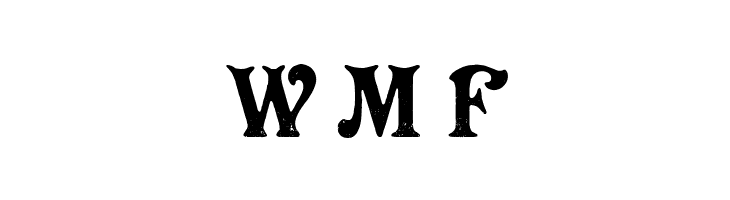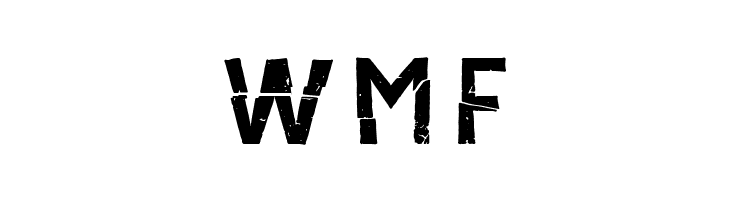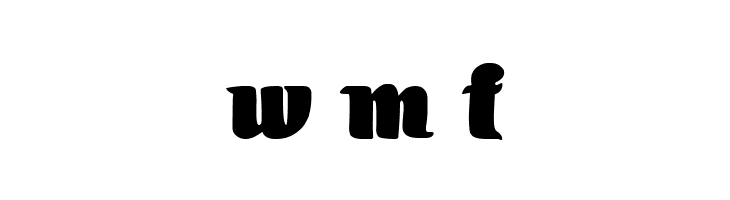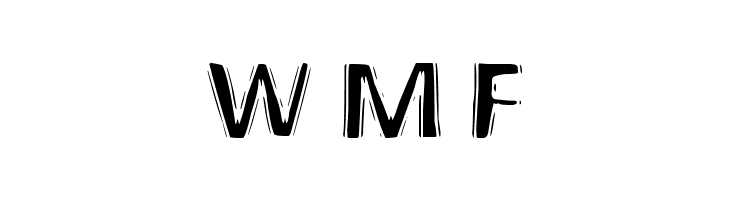
• Lamp
A bold, geometric stencil-style display font with an industrial look.
• Lana Turner
A bold, playful font with a dripping effect and retro vibe.
• Lapicero
A textured, hand-drawn font with a playful and artistic style.
• Las Brigadas
A bold, stencil-style font with geometric shapes and high contrast.
• Las Malas Calles
A bold, dripping font with a graffiti-like, horror-inspired style.
• Last Round
Bold, outlined geometric display font with strong industrial style.
• Latino Blood
A bold, dripping decorative font with a horror or blood theme.
• Latino Heart
A playful, bold handwritten font with a lively and energetic style.
• Le Casino Royale
A bold, vintage decorative font with distressed textures and ornate details.
• Le Club Parisien
A bold, distressed font with a vintage, industrial feel.
• Le Petit Chaos
A playful, sketch-like font with overlapping strokes and a hand-drawn feel.
• Leche Frita
A bold, distressed font with a grunge texture and rugged appearance.
• Ledesma Corporation
A bold, textured, hand-painted style font with a dynamic and artistic appearance.
• left hand comic
A bold, comic-inspired font with a dotted texture and playful style.
• Lessons in Love
A bold, playful font with thick, rounded strokes and a friendly appearance.
• Liberty City
A bold, rounded, playful display font with a bubbly look.
• Library
A bold pictogram font of library and book-themed icons.
• Lighter Icons
A bold, icon-based font featuring various lighter illustrations.
• Lightning Bolt
A display font made up of diverse lightning bolt icons and electric motifs.
• Lightning Bolt
A display font made up of diverse lightning bolt icons and symbols.
• linoleum
A bold, artistic font with a hand-drawn, dynamic style.